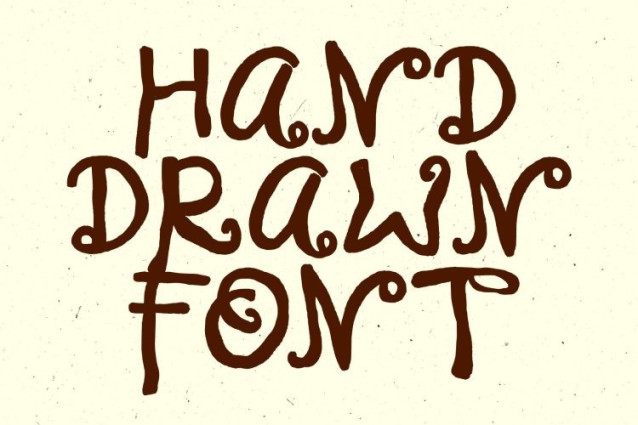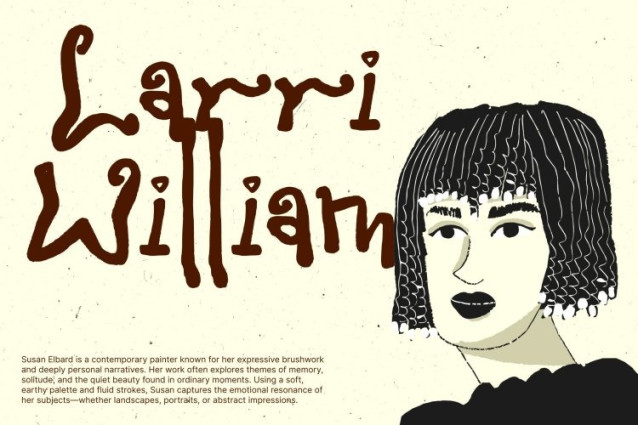
CS Selyra Font This is a whimsical decorative font crafted to spark creativity and bring fantasy to life. Each character flows with playful curves and artistic detailing, creating a magical rhythm that feels like it’s lifted straight from a storybook world. Its imaginative design makes every word feel lively, charming, and full of enchantment perfect.
Fantasy Aesthetic with Artistic, Magical Fiction Flair
Blending fantasy influences with expressive artistry, this font introduces a magical atmosphere to any layout. Its unique shapes, inspired by mythical tales and imaginative realms, infuse your designs with charm and delight. This whimsical tone brings warmth and excitement, making the font ideal for visuals that aim to inspire joy and creativity.
Perfect for Kids’ Projects, Storybooks, and Playful Posters
This font shines in projects that celebrate fun and imagination. Whether used for children’s books, educational materials, playful posters, or themed events, it instantly brightens the design with cheerful personality. Its decorative details stand out in titles, headlines, and branding elements.
A Cheerful Choice for Creative and Magical Designs
Designed for creators who want to add charm and fantasy to their work, this font offers a delightful blend of whimsy and artistic expression. Its decorative forms elevate branding, packaging, social media graphics, or any creative project with a magical, uplifting mood.